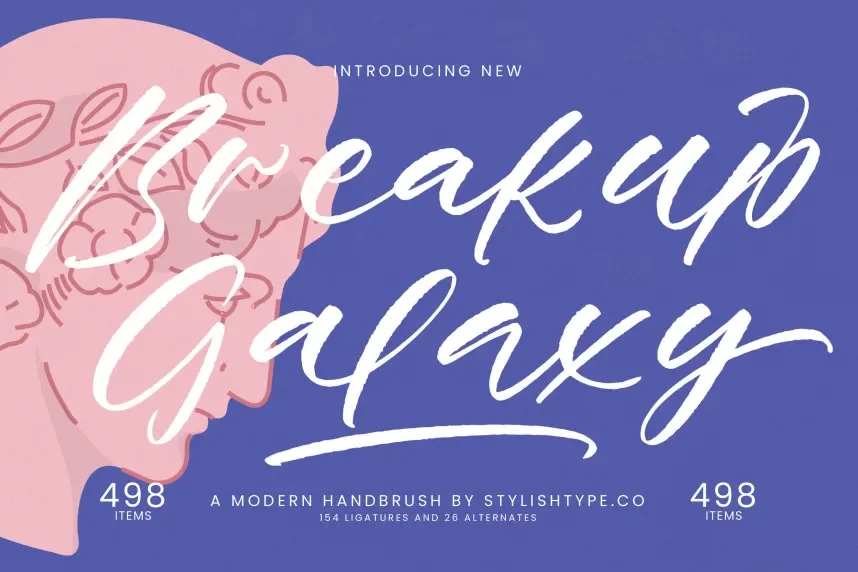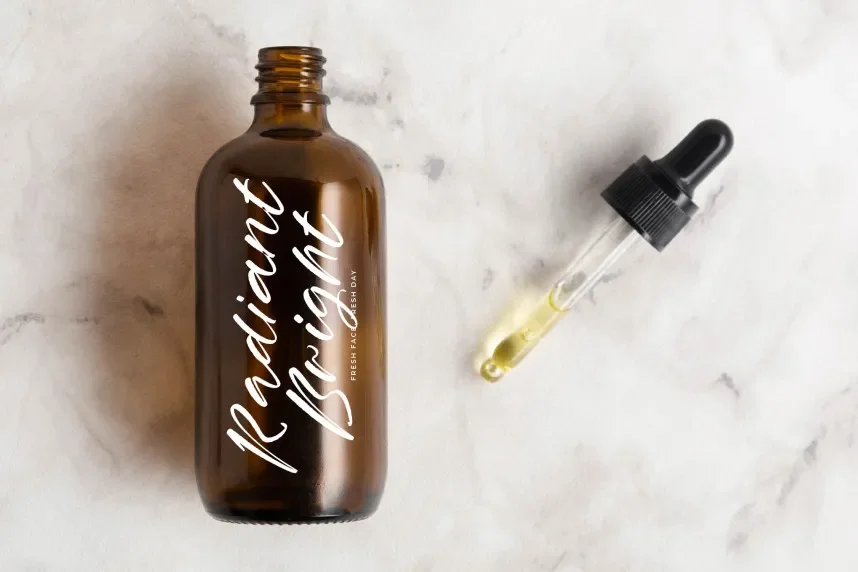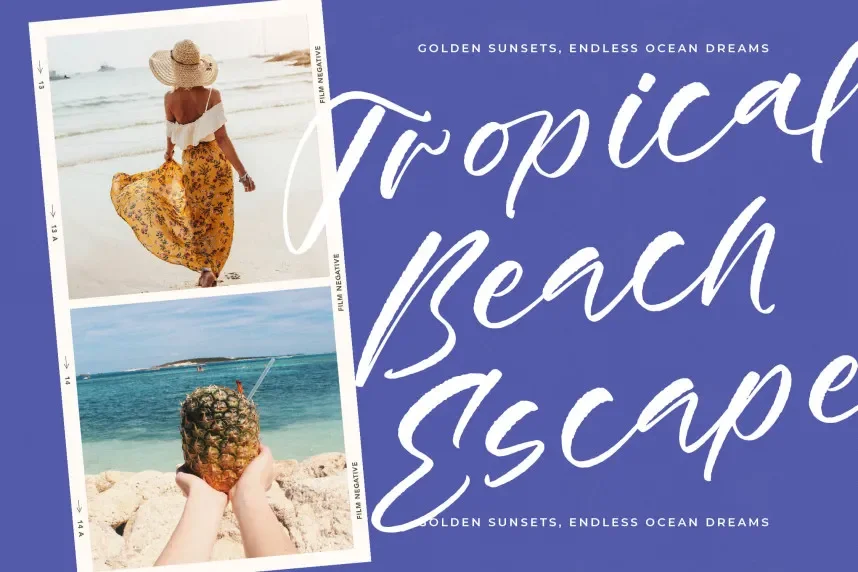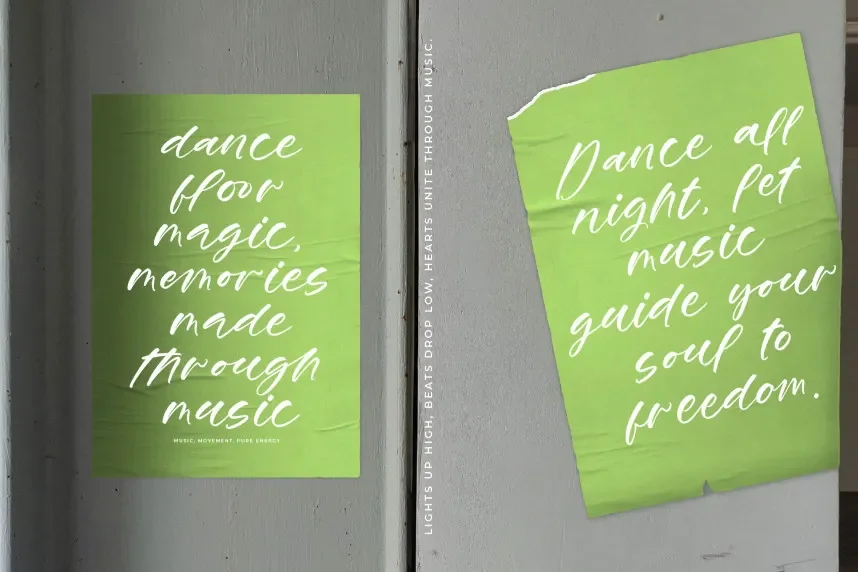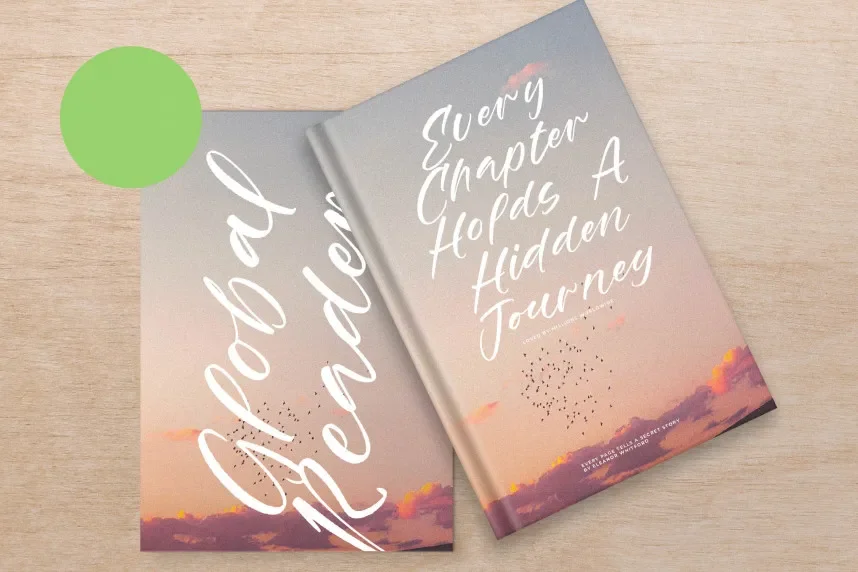
Breakup Galaxy Font is a modern handbrush typeface designed to bring expressive energy while maintaining readability. Many brush fonts feel uncontrolled and inconsistent. Breakup Galaxy solves this with structured strokes and clear letter alignment.
This font belongs to the handbrush script category. Its letterforms show visible brush texture, varied stroke pressure, and natural curves. Despite its handcrafted look, spacing remains controlled, making the font usable in digital layouts.
Breakup Galaxy works well for branding, album artwork, social media posts, posters, and creative logos. It performs best at medium to large sizes. Designers usually pair it with a neutral sans-serif font for body text.